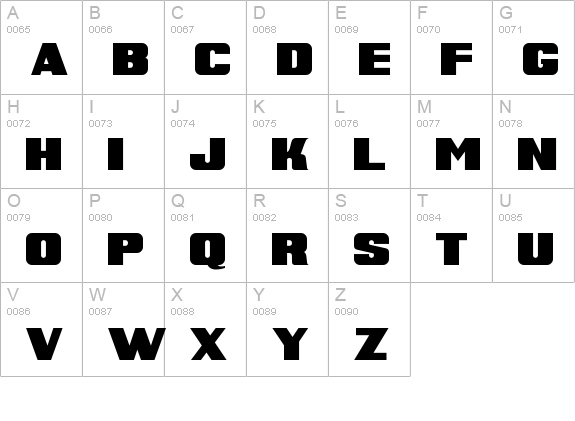
Super Retro M54 is a one-of-a-kind font that takes you back in time to the golden era of retro design. With its bold and striking appearance, this font captures the essence of vintage typography, making it perfect for any project that requires a touch of nostalgia. The letters of Super Retro M54 are meticulously crafted, featuring clean lines and sharp corners that give it a distinct retro feel. Each character is carefully designed to evoke a sense of nostalgia and bring back memories of the past. Whether you're designing a poster, creating a logo, or working on a branding project, this font is sure to add a unique and eye-catching element to your work. What makes Super Retro M54 even more appealing is that it is completely free. Yes, you read that right - this incredible font is freely available to download at FontsMarket.com. Now you can enhance your designs without breaking the bank, as this font offers a high-quality and professional look without the hefty price tag. Whether you're a professional designer or just someone with a passion for typography, Super Retro M54 is a font that you don't want to miss. Its timeless appeal and vintage charm will elevate your designs and transport your audience to a different era. So don't wait any longer, head over to FontsMarket.com and download Super Retro M54 for free today.